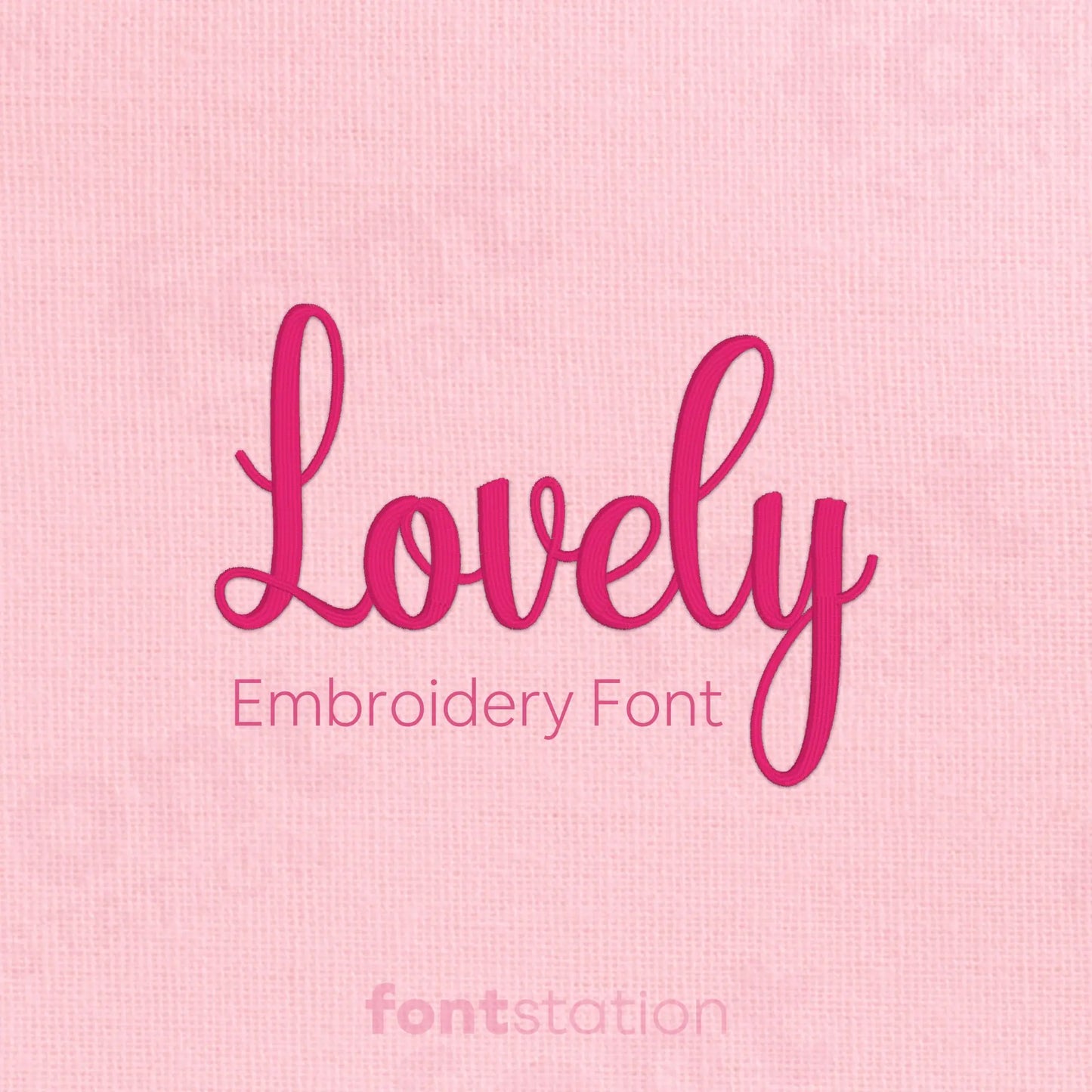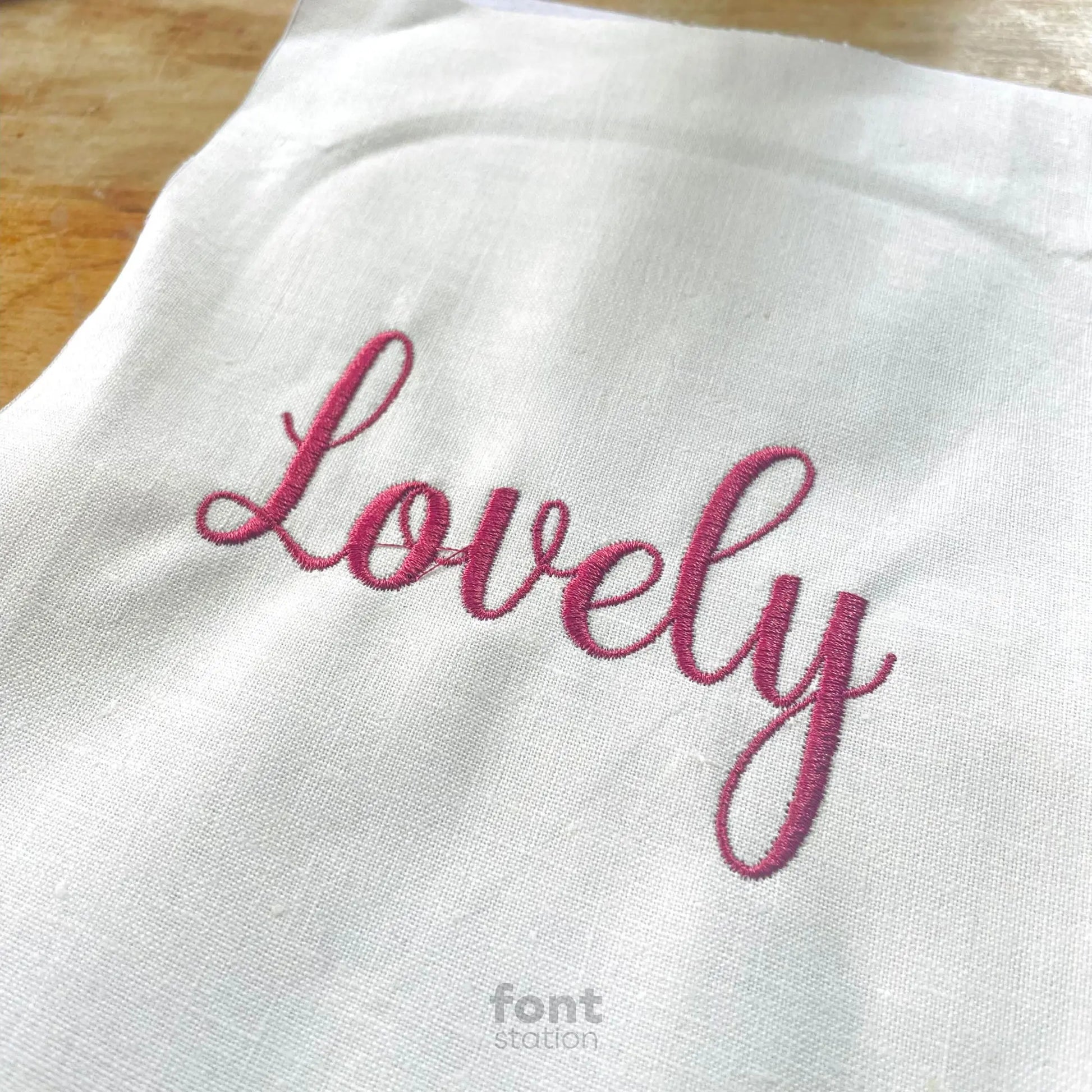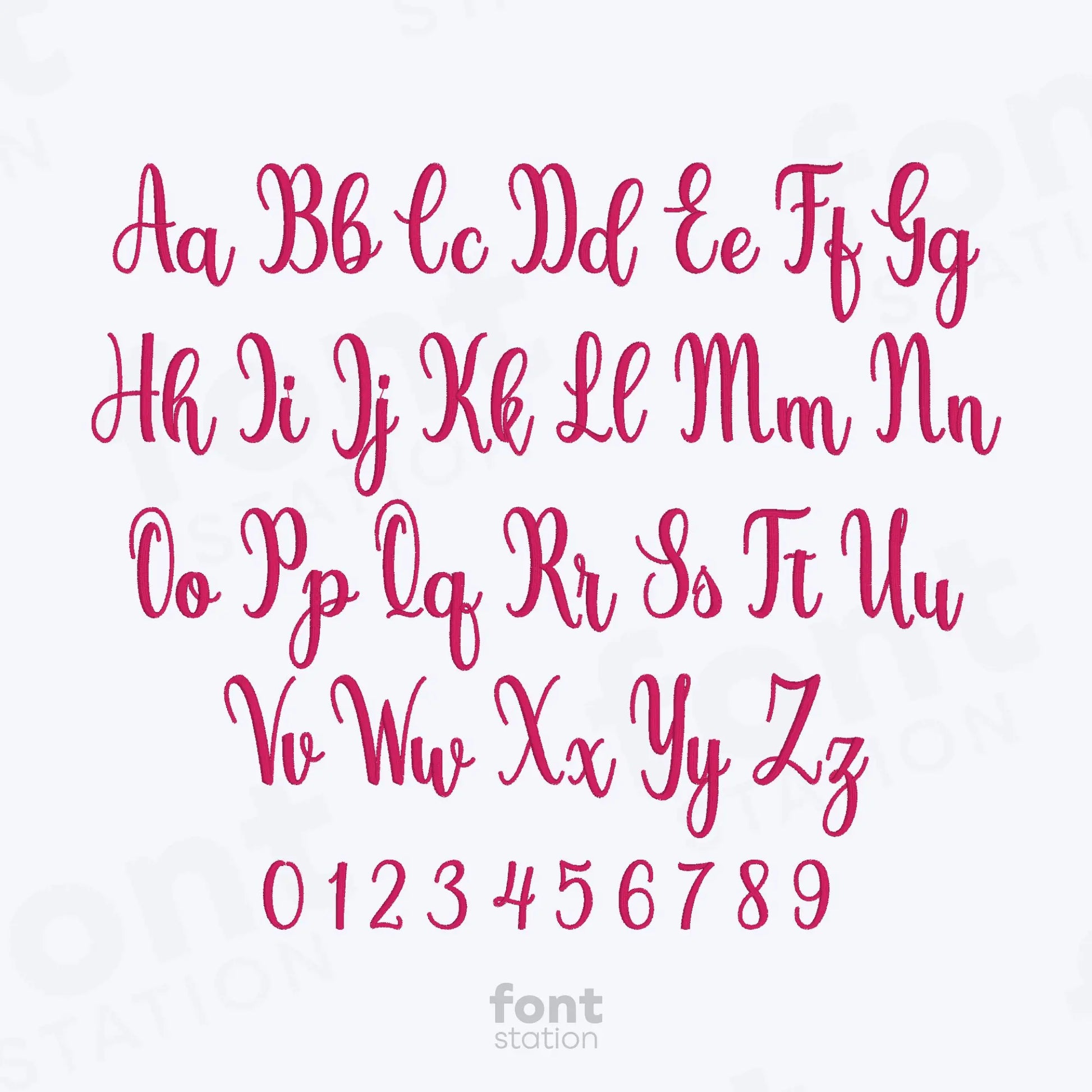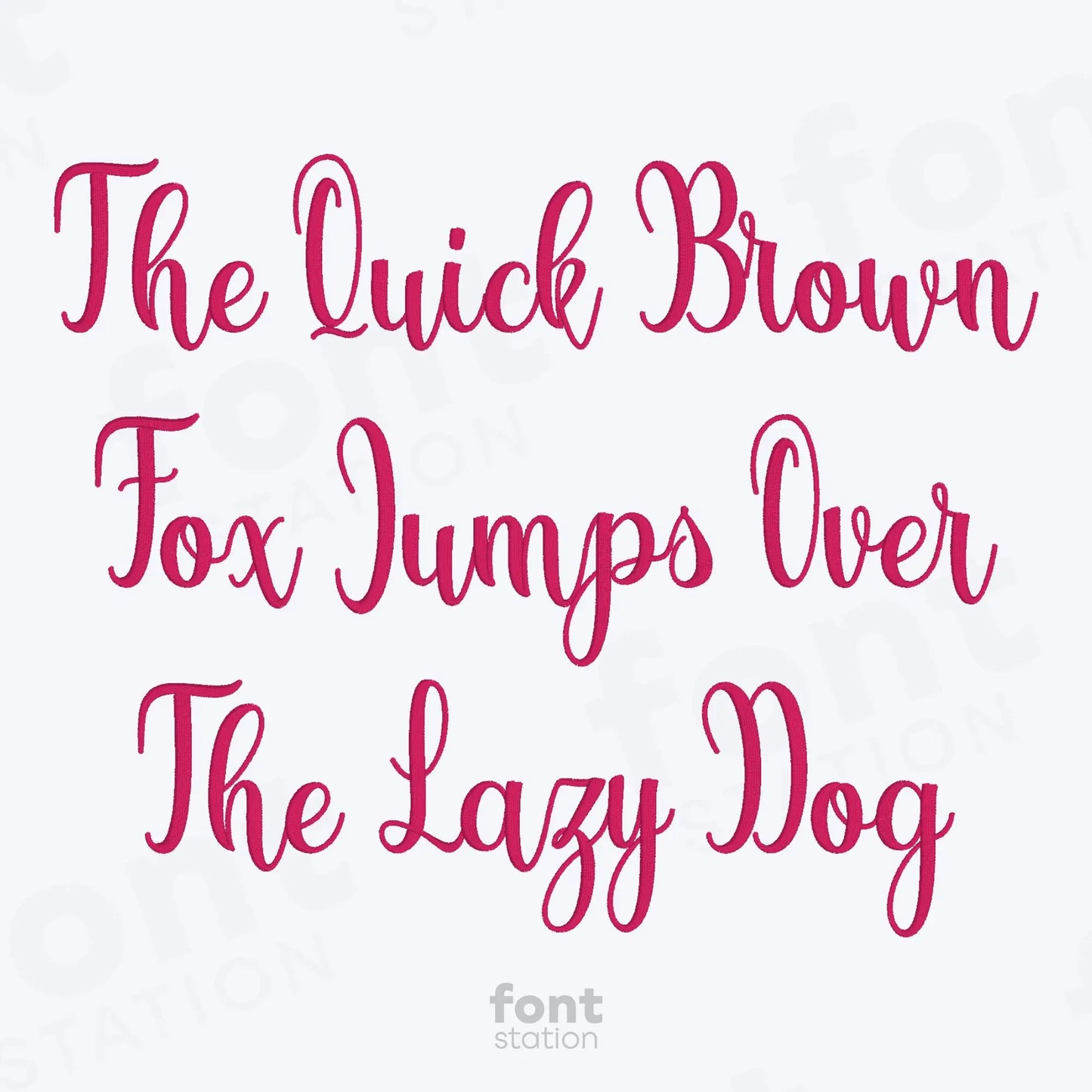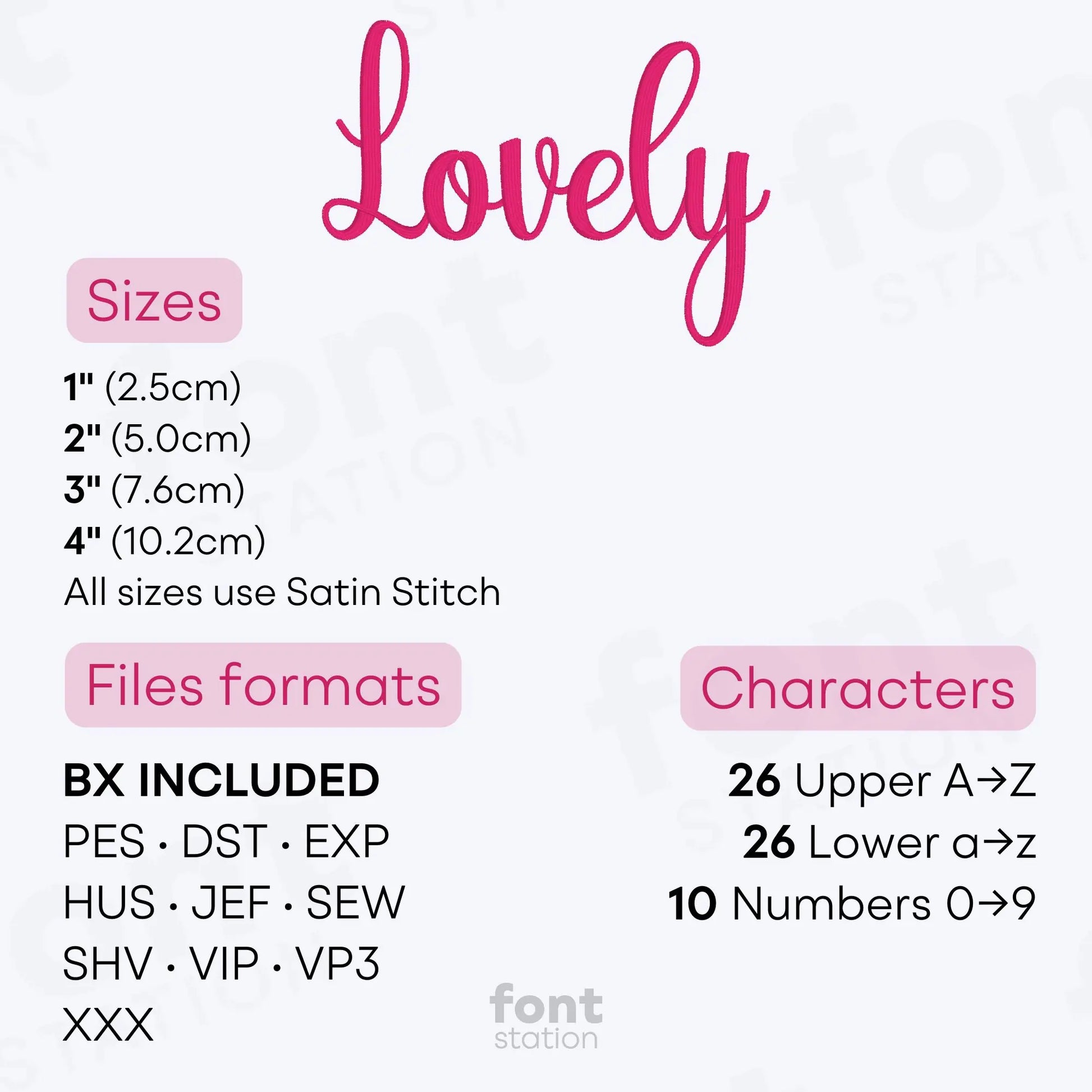
Lovely Embroidery Font
Introducing our Lovely embroidery font, an elegant cursive alphabet perfect for romantic designs. These flowing letters stitch beautifully on any embroidery machine, making it ideal for your next heartfelt embroidery project.
About the Lovely Embroidery Font
Characters: 26 uppercase, 26 lowercase, and 10 numbers
Our Lovely embroidery font adds an elegant cursive touch to your embroidery projects.
The Lovely embroidery font features a graceful, flowing cursive alphabet with delicate letters perfect for romantic, personalized, and elegant designs. Ideal for weddings, gifts, home decor, and monograms, this embroidery font stitches beautifully on any embroidery machine. Professionally digitized and available in BX, PES, DST, JEF, EXP, VP3, and HUS formats, it’s a must-have for soft, sophisticated projects that call for a lovely finishing touch.